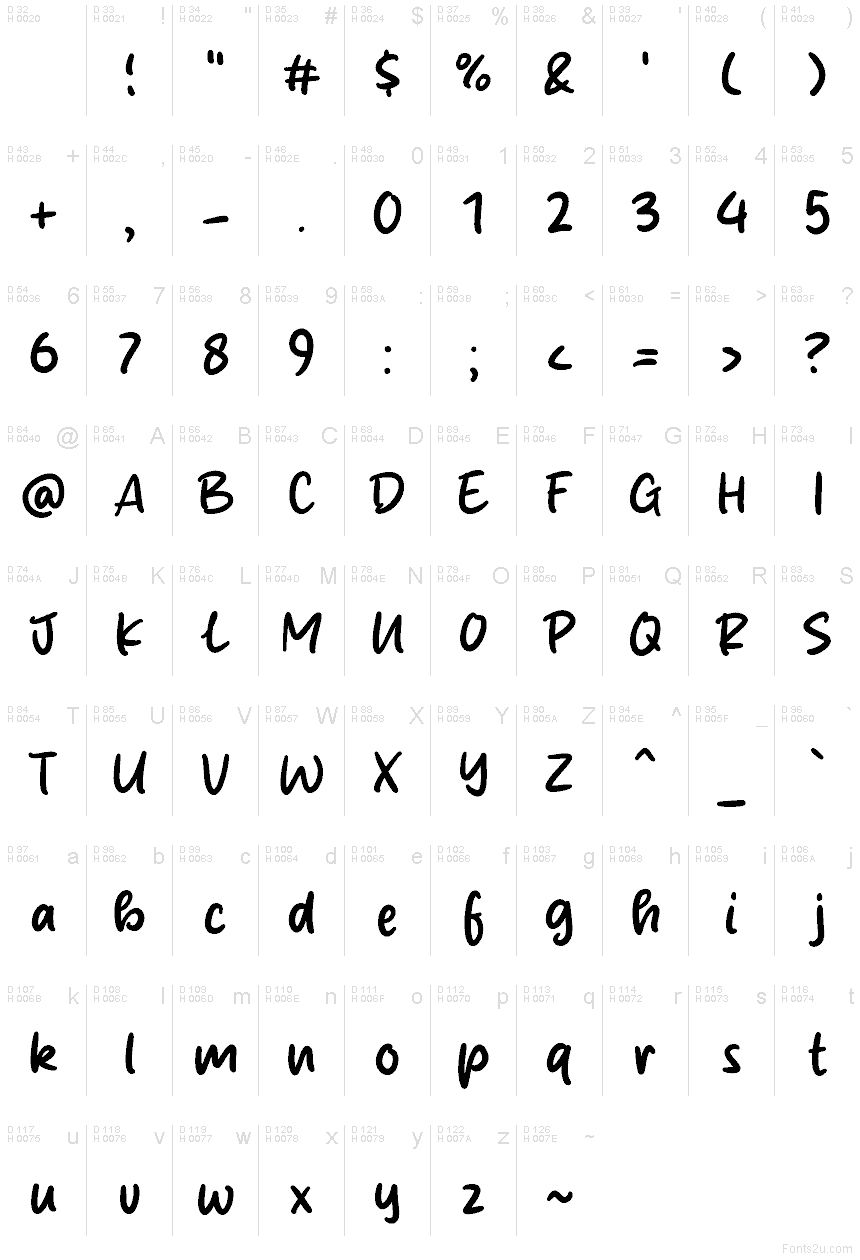
Lemon Rush
Lemon Rush font by Origin Type is a free handwritten font that hits that sweet spot between casual and clean. Its smooth, inky strokes feel like they were drawn with a slightly juicy brush pen—lively and bouncy, but never messy. The letters connect with an easy rhythm that stays readable even at smaller sizes, so you get all the charm of hand lettering without sacrificing clarity.
Using Lemon Rush, this free font really shines on product packaging, social media graphics, quote posts, logo wordmarks, café menus, and playful event invites. The rounded forms give everything a friendly, approachable tone that works beautifully for lifestyle, beauty, and food brands. For a simple pairing trick, match Lemon Rush with a light, neutral sans serif for body text and let this handwritten typeface handle the headlines and accents.